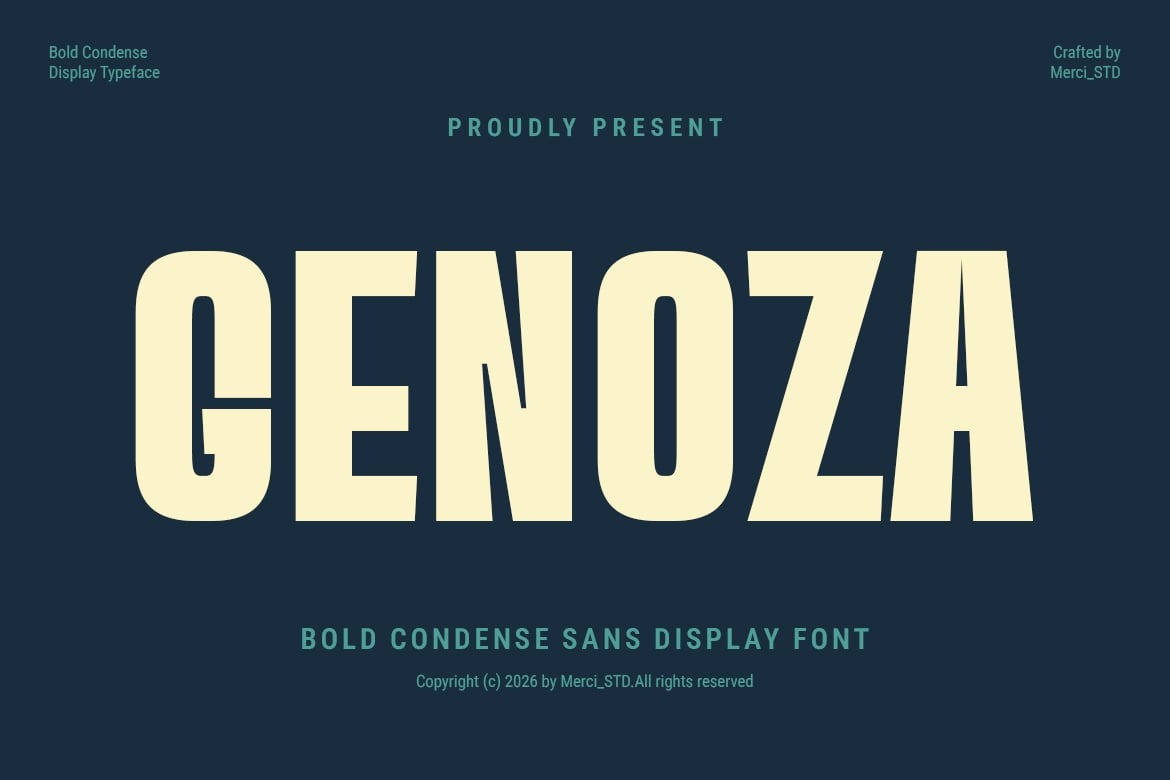
Genoza – Bold Sans Font
Genoza – Bold Sans Font is a professionally designed typeface that delivers clarity, structure, and consistent performance across various design applications. Genoza is a bold condensed sans serif display font designed for strong and compact typography. Ideal for headlines, posters, branding, and modern layouts.